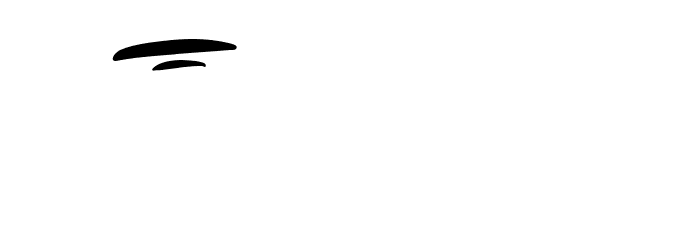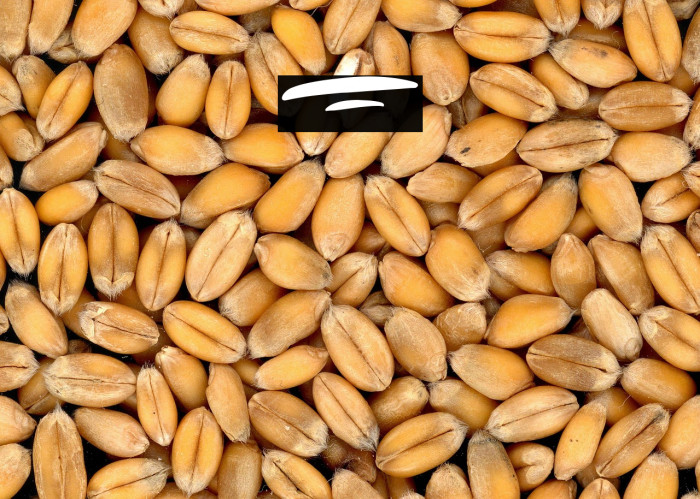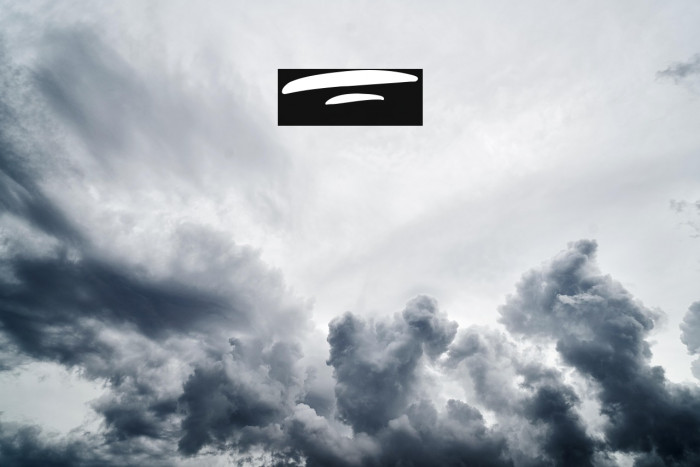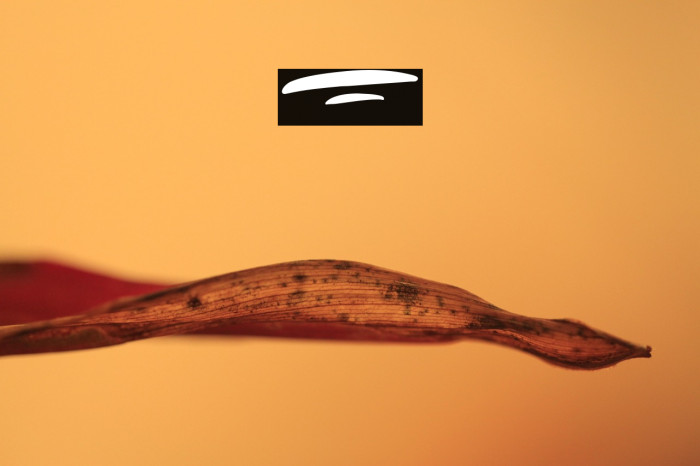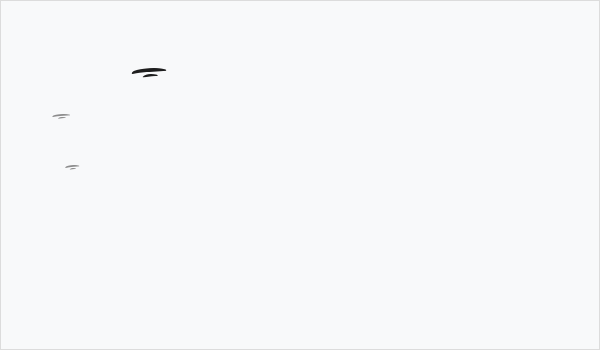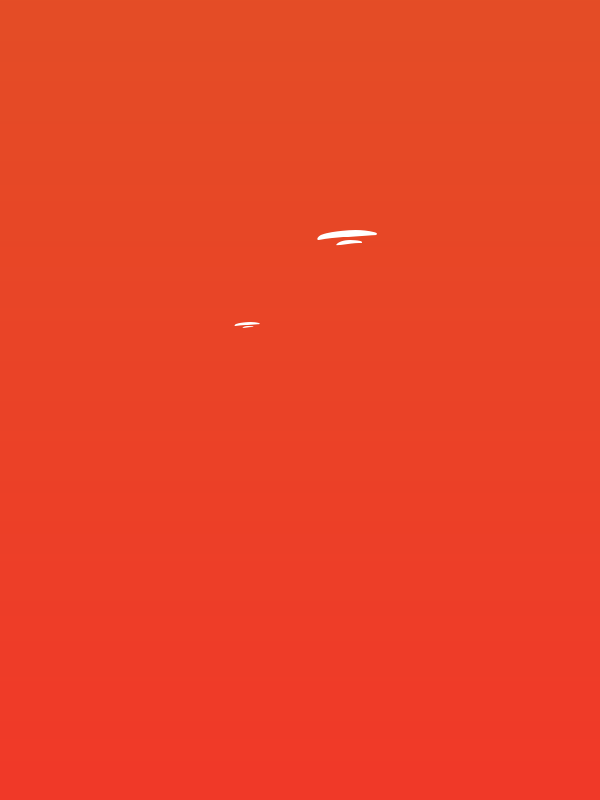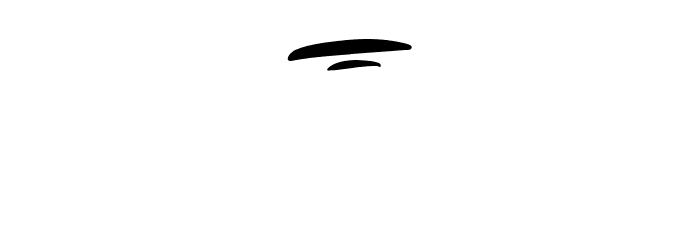
Ghostily Swashes Font
Ghostily Swashes Description
This image contains only a pair of abstract swash-like marks, not a complete or valid font with recognizable alphanumeric or punctuation characters.